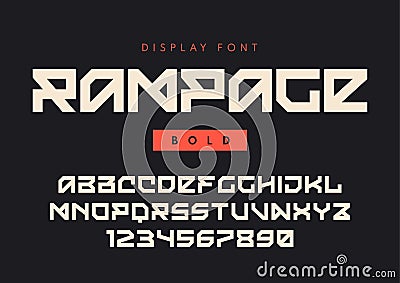
Vector Modern Bold Display Font Named Rampage, Blocky Typeface,
Vector modern bold display font named Rampage, blocky typeface, futuristic uppercase letters and numbers, alphabet. Global swatches.